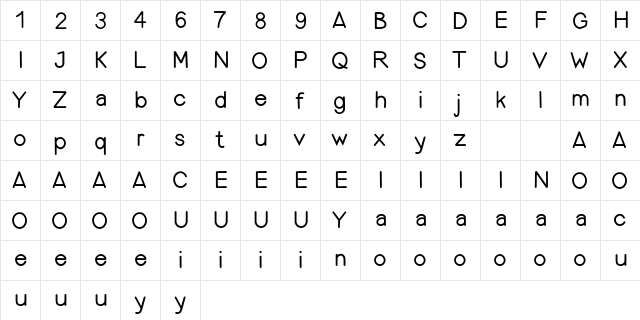
LIBURANCO Regular
Design Context for LIBURANCO Typeface
LIBURANCO takes a measured approach to typography — its balanced proportions and neutral character make it a reliable workhorse for both digital and print work.